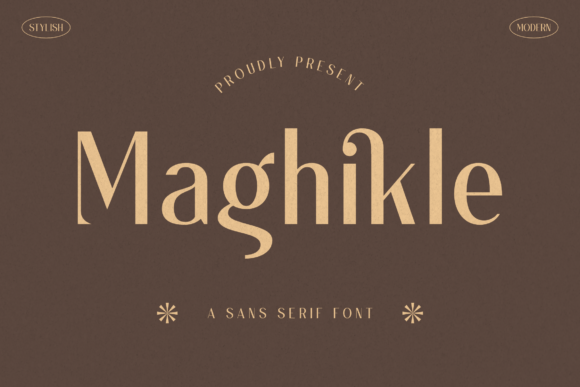
Introducing Maghikle Font, the stylish sans serif font that will captivate your audience and leave a lasting impression. Its meticulously crafted design exudes elegance and luxury, making it the perfect choice for creating logos, fashion brands, magazines, apparel, lettering, and more.
Maghikle's unique appearance sets it apart from the ordinary, adding a touch of sophistication and allure to your creative projects. Its clean lines and chic curves flow effortlessly, creating a visual symphony that commands attention. Whether you're designing a logo for a high-end fashion label or crafting eye-catching headlines for your magazine, Maghikle Font is sure to elevate your work to new heights.
Step into a world of endless possibilities with Maghikle Font. Its versatility knows no bounds, adapting seamlessly to a wide range of design concepts and styles. From sleek and minimalist logos to whimsical and playful branding, Maghikle possesses the inherent ability to transform your ideas into captivating realities. Unleash your creativity and explore the limitless potential that awaits you.
Maghikle Font is not just another font; it's an artistic masterpiece that breathes life into your designs. Its intricate details and subtle nuances add depth and dimension to your creations, evoking emotions and capturing the attention of your audience. With Maghikle, your designs will transcend the ordinary and leave an indelible mark on the minds of those who encounter them.
Don't settle for mediocre fonts that fail to inspire. Embrace the power of Maghikle Font and unlock a world of boundless creativity and elegance. Let your designs shine with a font that truly reflects your unique style and vision. Experience the transformative power of Maghikle Font today and witness the magic it brings to your creative endeavors.